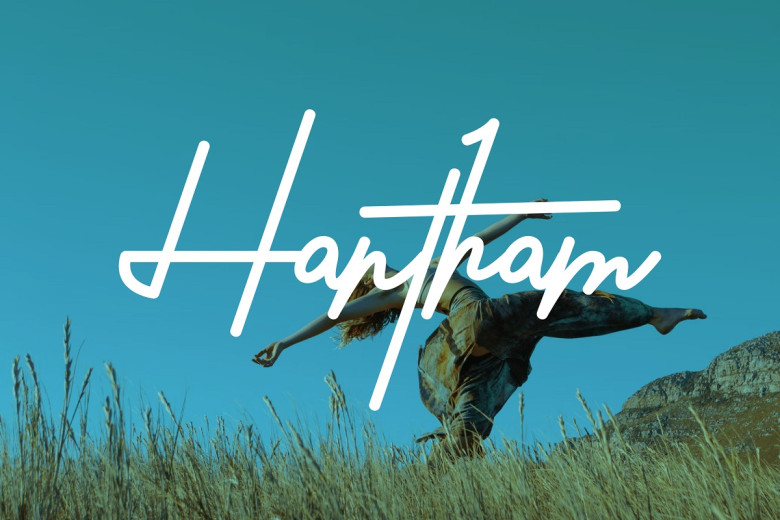
Hantham Font
Hantham is a cool and authentic handwritten monoline font. The font is suitable for any branding project like logo, t-shirt printing, esport, and many more. outstanding in a wide range of contexts.
Hantham Handwritten Monoline Font